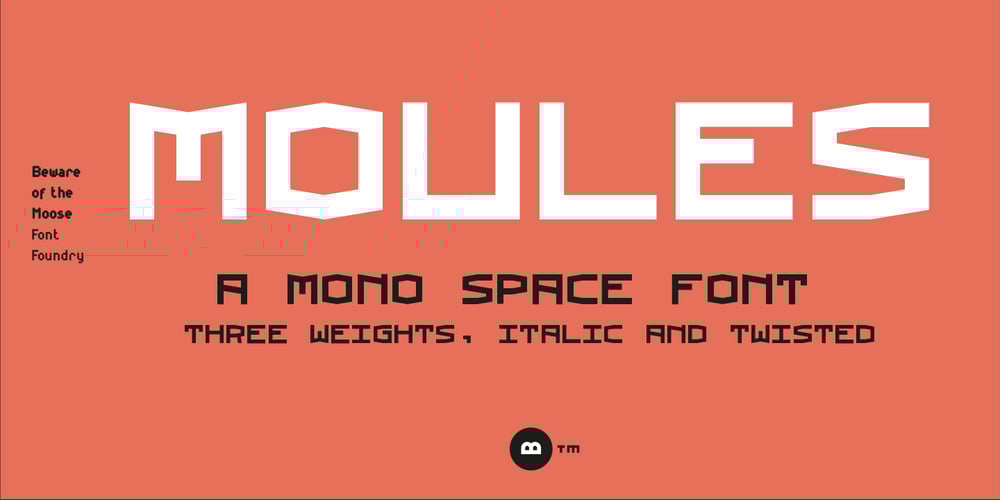
Moules Font Family was designed by Hermen Grasman and published by Beware of the moose. Moules contains 9 styles and family package options. Moules is a mono spaced font family coming in three weights and three different forms, normal, italic and twisted. This font has more details than my first mono spaced font – Memory Square – and gives the possibility for more subtile typography.